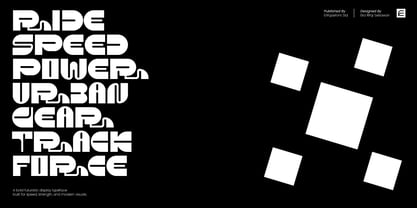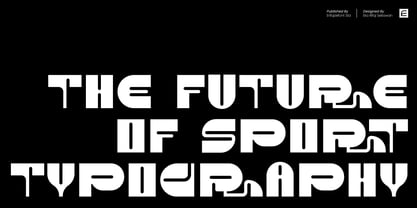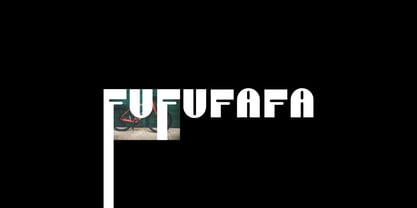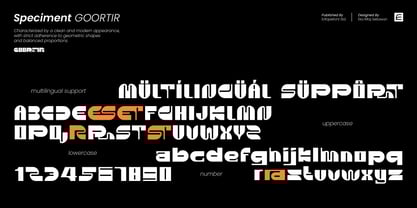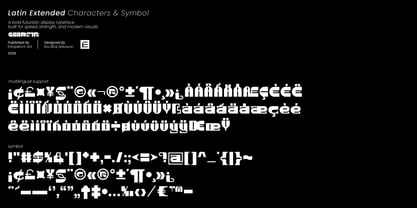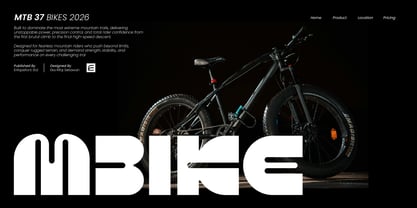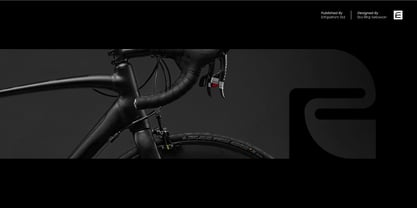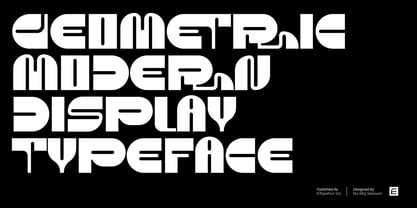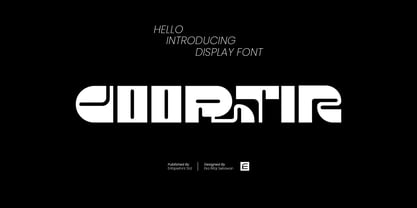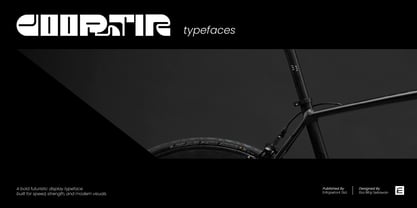
Goortir
The Goortir Font Family was designed by Eka Rifqi Setiawan and published by Erifqizefont. Goortir contains 1 styles. More about this family
Goortir is a bold futuristic display font built with modular construction and ultra-geometric letterforms. Its solid shapes, wide proportions, and smooth futuristic curves create a strong visual identity that instantly stands out. Goortir blends modern minimalism with experimental typography, resulting in a font that feels innovative, stylish, and highly expressive. Perfect for large-size usage, Goortir is ideal for logos, headlines, posters, branding, sci-fi themes, esport graphics, album covers, editorial layouts, and creative experimental projects. Its unique shapes bring a bold statement and a fresh futuristic personality to any design. If you’re looking for a font that feels modern, techno-driven, and unforgettable—Goortir delivers. Designed by Erifqizefont Std.